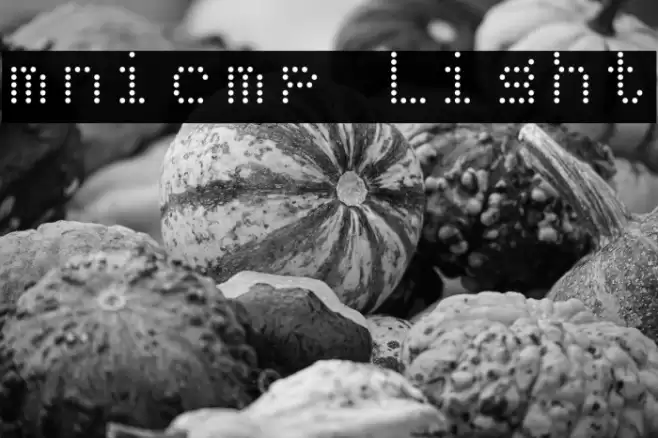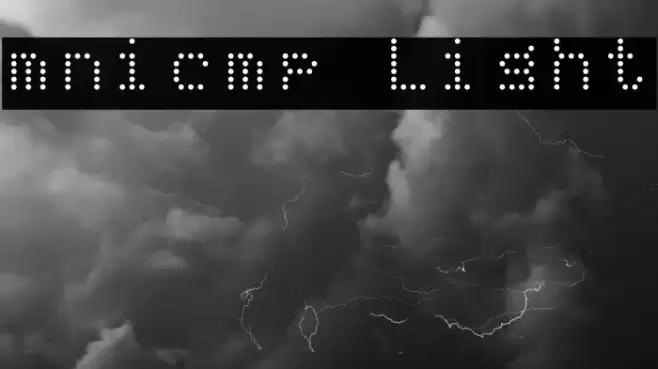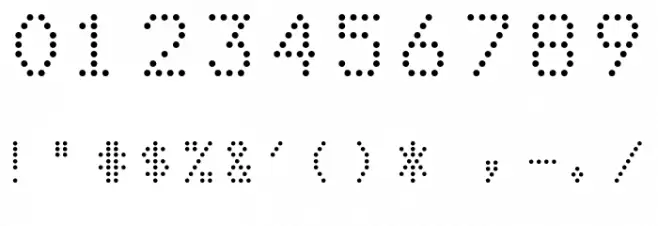
mnicmp Light Font
mnicmp Light Description
This font features a unique dotted design, where each character is composed of a series of evenly spaced dots. The uppercase and lowercase letters maintain a consistent pattern, creating a cohesive and modern appearance. The numerals and special characters follow the same dotted style, ensuring uniformity across all glyphs. This design is both playful and structured, making it suitable for creative and contemporary projects. The font's geometric nature gives it a digital or technological feel, while the dots add a touch of whimsy.
A modern, dotted font with a playful and structured design from Uncategorized fonts.
- Proposed Projects: Ideal for digital art, tech-themed designs, children's books, and creative branding.
- Use Case: Logos, Headlines, Creative projects